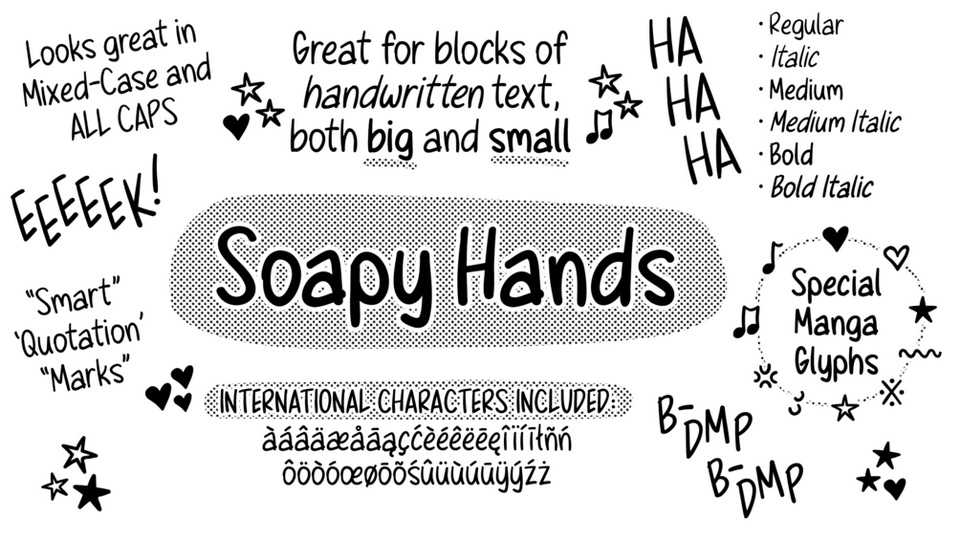
Download Soapy Hands typeface, a cute handwritten font family in six styles. Soapy Hands has a wide range of glyphs designed for manga lettering, and it would be great in any comic book.
Designer: Sara Linsley